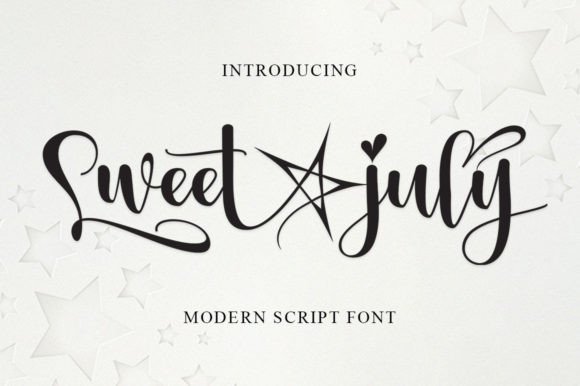
Welcome to the world of Sweet July, a font that embodies the essence of elegance, grace, and fluidity. Immerse yourself in the beauty of this script font, designed to elevate your creative projects to new heights.
Sweet July is crafted with meticulous attention to detail, capturing the essence of timeless style and sophistication. Each letter flows seamlessly into the next, creating a captivating visual dance that draws eyes and captivates hearts. Whether you're a seasoned designer or a creative enthusiast, Sweet July is your gateway to stunning designs that leave a lasting impression.
Let your imagination run wild as you explore the versatility of this exquisite script font. It's perfect for personalizing invitations, crafting heartfelt letters, designing enchanting logos, and adding a touch of magic to your social media presence. With Sweet July, the creative possibilities are endless.
Discover the allure of this PUA-coded font, granting you effortless access to a world of glyphs and swashes. Unleash your creativity and weave your words into works of art, captivating audiences with your unique designs.
Sweet July isn't just a font - it's an experience. It's an invitation to embark on a creative journey, to express yourself in ways you never thought possible. Let the smooth curves and delicate flourishes of Sweet July inspire you to create designs that resonate with beauty, elegance, and timeless style.